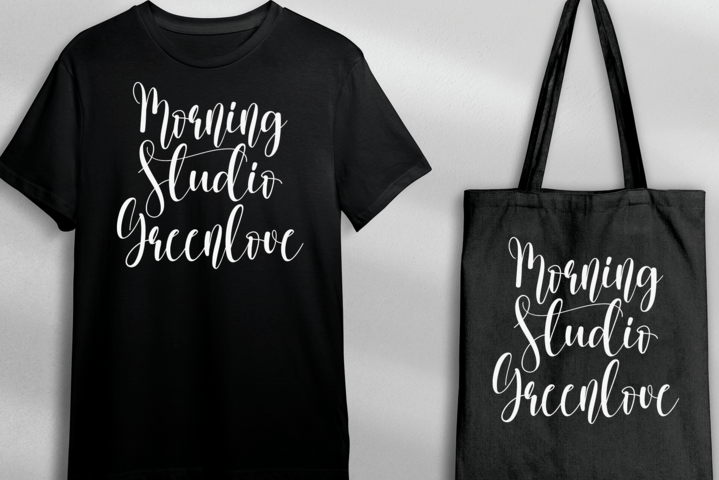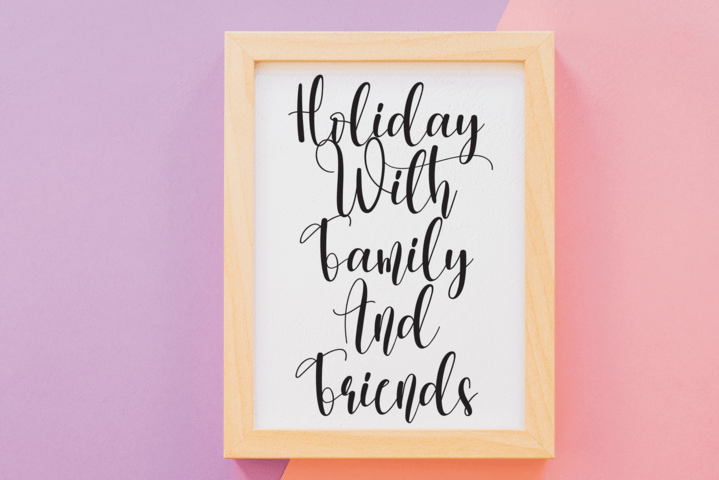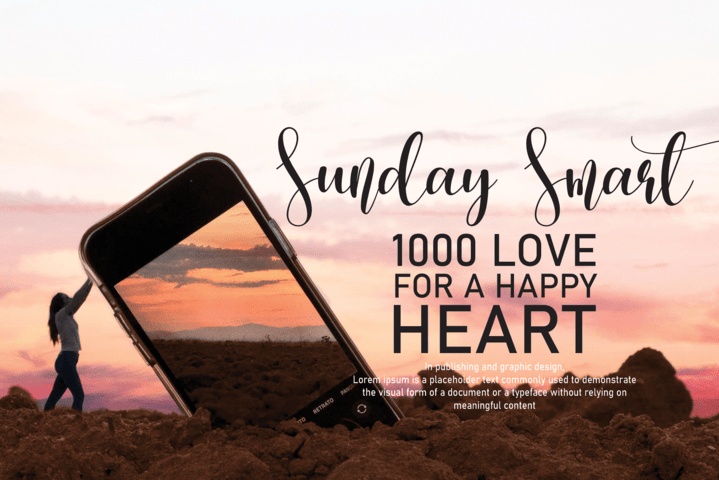
Hello December Font
Hello December Script Font
It’s an organic handwritten font that you can use for wall displays, wedding invitations, social media post logos, advertisements, product packaging, product designs, labels, photography, watermarks, invitations, and stationery.